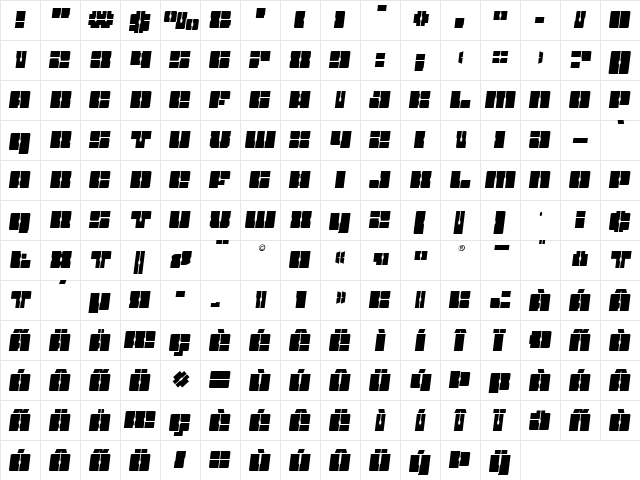
Star Nursery Semi-Italic Font Preview
Star Nursery Semi-Italic Semi-Italic
Star Nursery Semi-Italic Font Details
Design Context for Star Nursery Semi-Italic Typeface
Star Nursery Semi-Italic is a composed and adaptable typeface that performs quietly and consistently across a wide range of design contexts. Its italic angle brings a sense of urgency and motion to the letterforms.
Pro Tip: Try Star Nursery Semi-Italic for annotation and caption copy alongside an upright companion — the contrast in angle creates a dynamic but ordered typographic system.